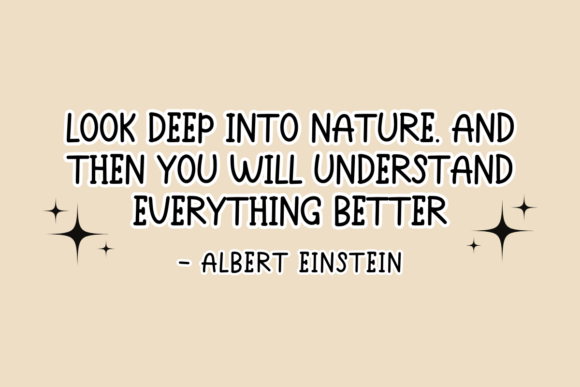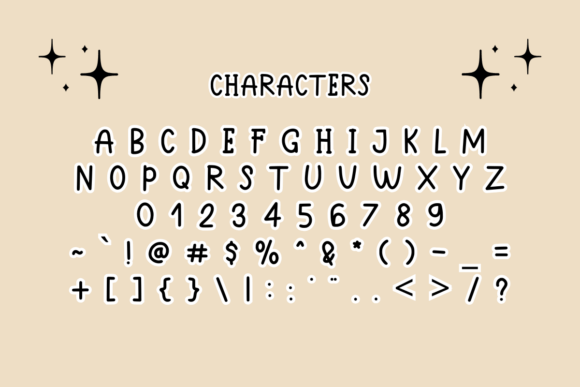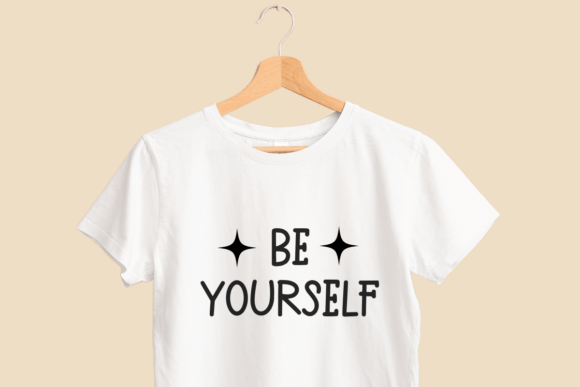
Introduction to Poster Luxury Font
Poster Luxury is a playful sans-serif font, perfect for a variety of projects like memos, journals, notes, planners, greeting cards, invitations, scrapbooks, and more.
It’s ideal for teacher materials, KDP interiors, printable stationery, daily planners, to-do lists, workbooks, calendars, and templates, adding a fun and friendly touch to your designs .
Key Features of Poster Luxury Font
Why Choose Poster Luxury Font?
Poster Luxury Font offers exceptional quality and versatility, making it a valuable addition to your design toolkit. Whether you’re creating for personal projects or commercial use, Poster Luxury Font delivers professional results.